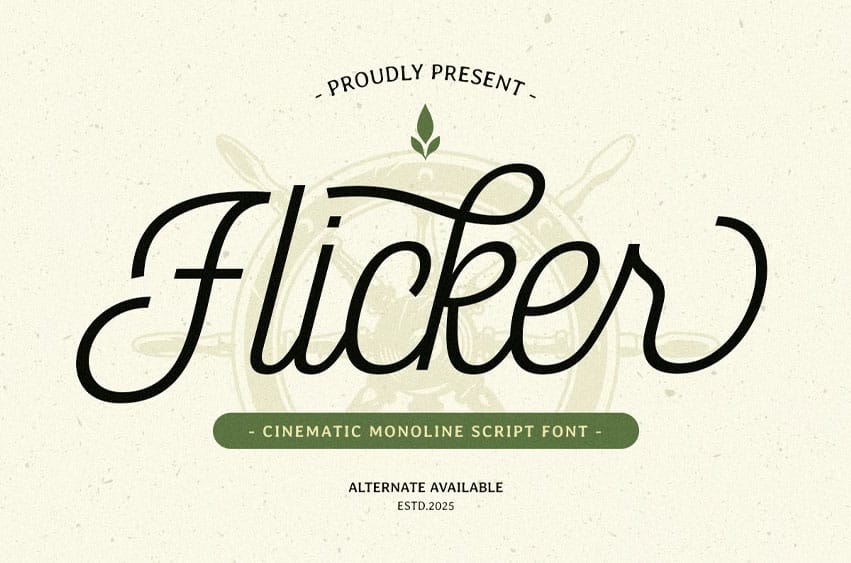
Flicker Font is a cinematic monoline script font that effortlessly combines elegant, flowing script with the sleek simplicity of monoline design. Perfect for creating film titles, high-end branding, and artistic design projects, FLICKER captures the essence of cinematic sophistication with a modern twist.
Whether you’re designing for a film studio, a luxury brand, or a creative project, FLICKER adds an elegant and professional touch to your branding. Its unique monoline structure gives it a refined, timeless aesthetic, making it perfect for logos, invitations, posters, and more.
FLICKER – Cinematic Monoline Script Font Features
- Vintage monoline script with cinematic influence
- Ideal for branding, film titles, logos, and creative projects
- Includes uppercase, lowercase, numerals, and punctuation
- Stylish, professional design with modern appeal
- OpenType features for advanced typographic flexibility
Add a touch of cinematic elegance to your projects with FLICKER – the perfect monoline script font for branding and creative design.